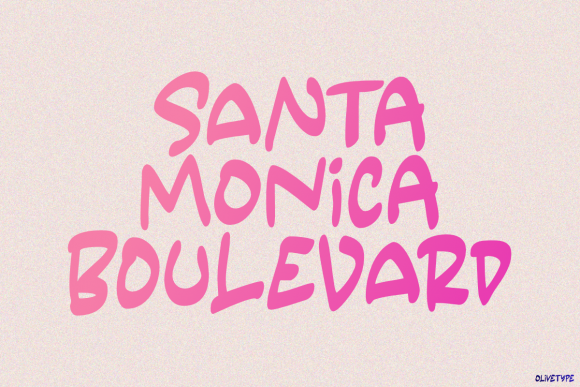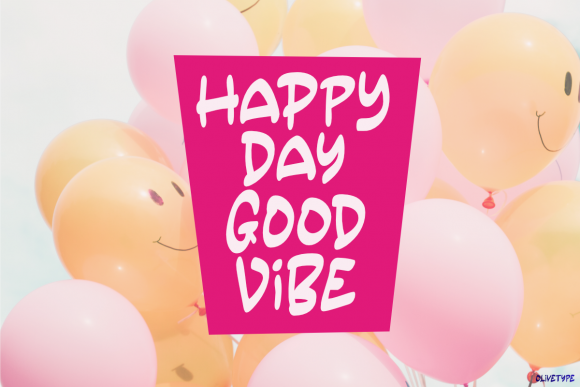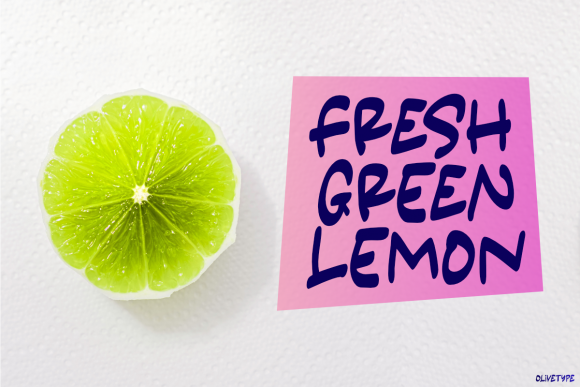
Friday Vibes: Unlocking the Creative Potential of Every Friday Font
Have you ever been sipping your morning coffee, scrolling through social media, and stumbled upon a visually striking design that makes you stop and think, “Wow, I wish I had created that”? That’s exactly what happened to many designers who fell in love with the quirky, urban vibe of Every Friday Font. This cool display font is more than just a pretty face – it’s a versatile tool that can elevate your designs to new heights.
Every Friday Font is designed to bring a touch of personality to your projects, from social media graphics to marketing materials and even street art. Its unique style and endless variations make it a valuable asset for designers who want to stand out from the crowd. Whether you’re a seasoned pro or a design newbie, Every Friday Font is the perfect companion for unleashing your creativity and taking your designs to the next level.
Every Friday Font Key Features
- Font Family: A custom-designed font family with a unique, handwritten feel.
- Font Sizes: Designed to be highly legible in various font sizes, from 12pt to 48pt.
- Resolution: Optimized for use at high resolutions, up to 300 DPI.
- Unique Characteristics: Distinctive letterforms, subtle flair, and a sense of movement, making it perfect for creative and expressive typography.
Every Friday Font Review
Every Friday Font is an interesting, hand-drawn typeface that’s sure to grab attention. ✨ One of its strongest features is its organic feel, making it perfect for creating a sense of whimsy and playfulness in designs. It’s ideal for projects that need a bit of personality and character.
Another great aspect of this font is its versatility. ✨ It comes in a range of weights and styles, allowing designers to mix and match to create unique combinations. From casual to formal, Every Friday Font can adapt to any tone or atmosphere.
- ⚠️ Readability can be a concern, especially in smaller sizes or for longer blocks of text. The font’s hand-drawn nature can make it difficult to read at a distance.
- ⚠️ It may not be suitable for formal or professional projects, as its casual and playful vibe can come across as unpolished or immature.
In conclusion, Every Friday Font is a fun and creative addition to any designer’s toolkit. While it may have some limitations, its unique charm and versatility make it a great choice for projects that need a bit of flair.
Some tips for getting the most out of Every Friday Font include using it for titles, headings, and emphasis in your designs. It’s also a great font to use for social media graphics, blog posts, and marketing materials. Be sure to pair it with a clean and simple design to make the most of its bold and modern style.
Alternatives to Every Friday Font for Designers
Raleway
Raleway is a clean and elegant sans-serif font that works well for body text and headings. It’s ideal for modern websites and applications that require a clean and professional look.
Comparison to Every Friday Font: Raleway has a more classic and timeless feel compared to Every Friday Font, which has a more modern and quirky look. Raleway is a better choice when you need a font that’s easy to read and works well in a variety of contexts.
Montserrat is a geometric sans-serif font that’s perfect for urban and modern designs. It’s highly legible and works well for headings and body text.
Comparison to Every Friday Font: Montserrat has a more aggressive and geometric feel compared to Every Friday Font, which is more rounded and playful. Montserrat is a better choice when you need a font that’s bold and attention-grabbing.
Merriweather is a classic serif font that’s perfect for body text and long-form content. It’s highly legible and works well in print and digital designs.
Q: What is the recommended font size for optimal readability with Every Friday Font?
The recommended font size for optimal readability with Every Friday Font is between 12pt and 14pt. However, this may vary depending on the specific design application, intended use, and personal preference. Experiment with different font sizes to achieve the desired visual effect.